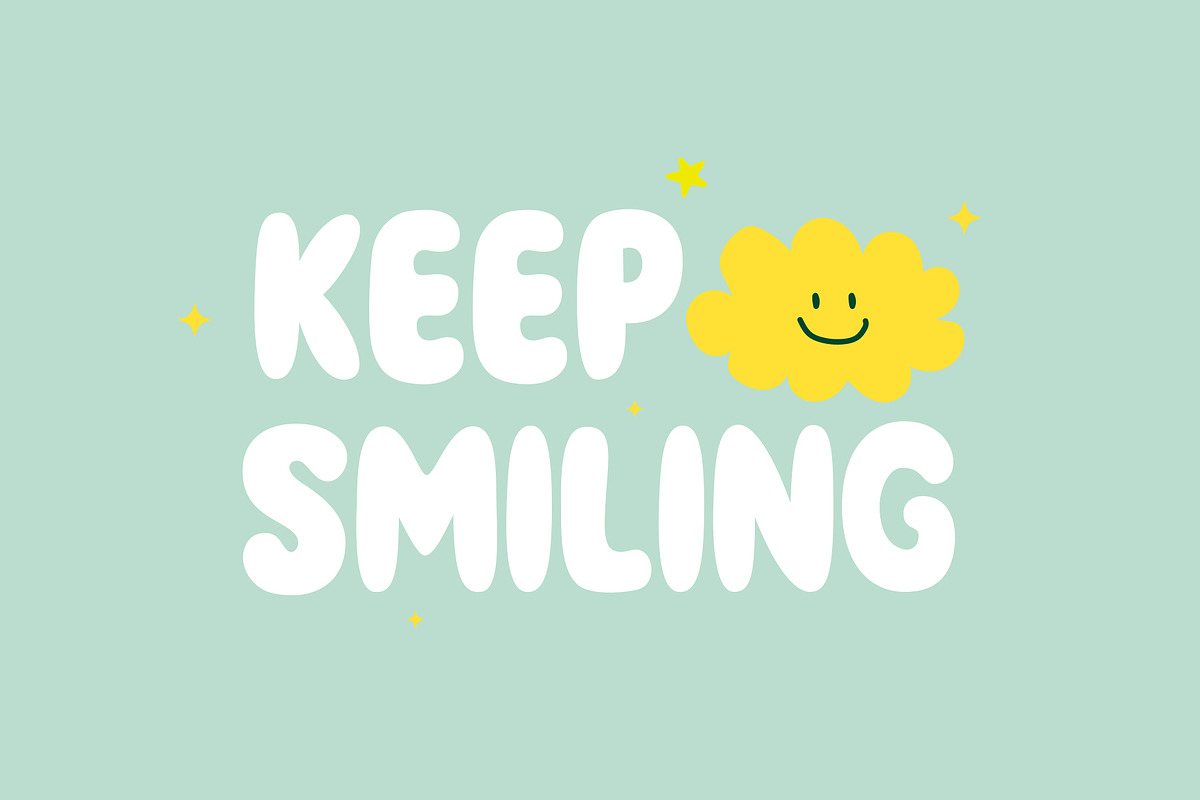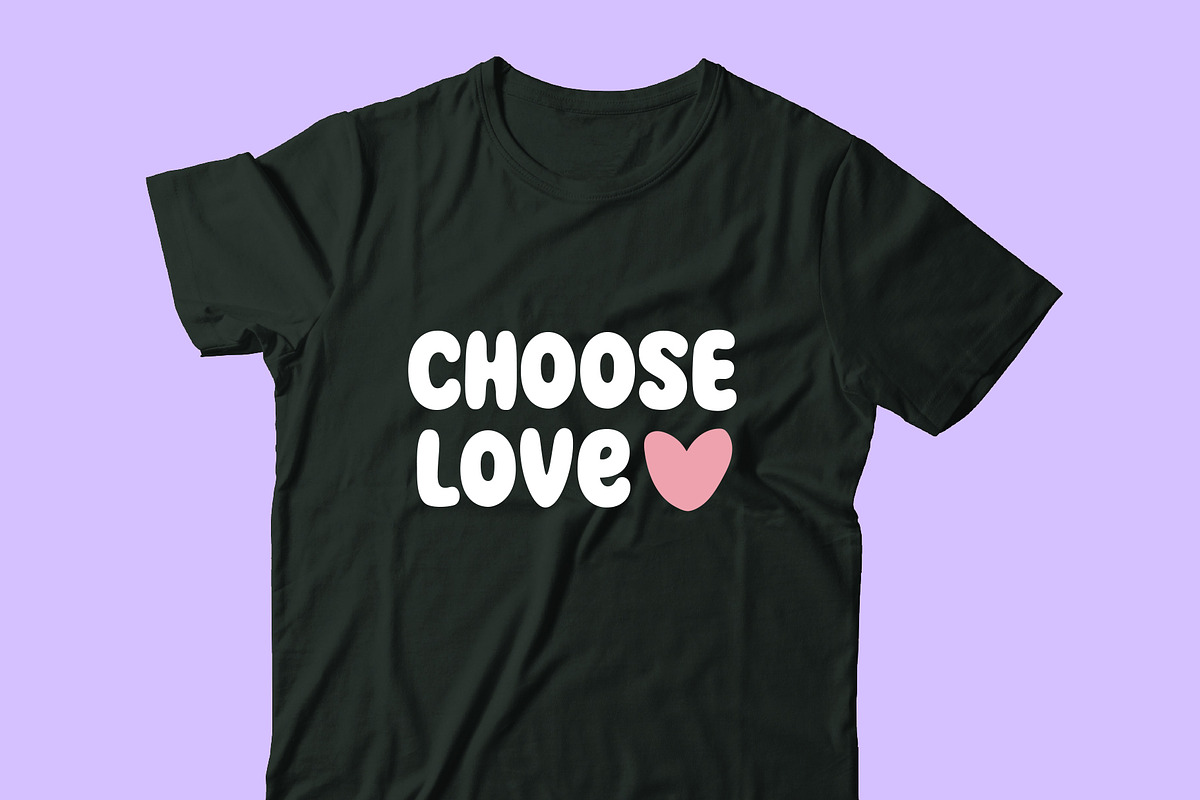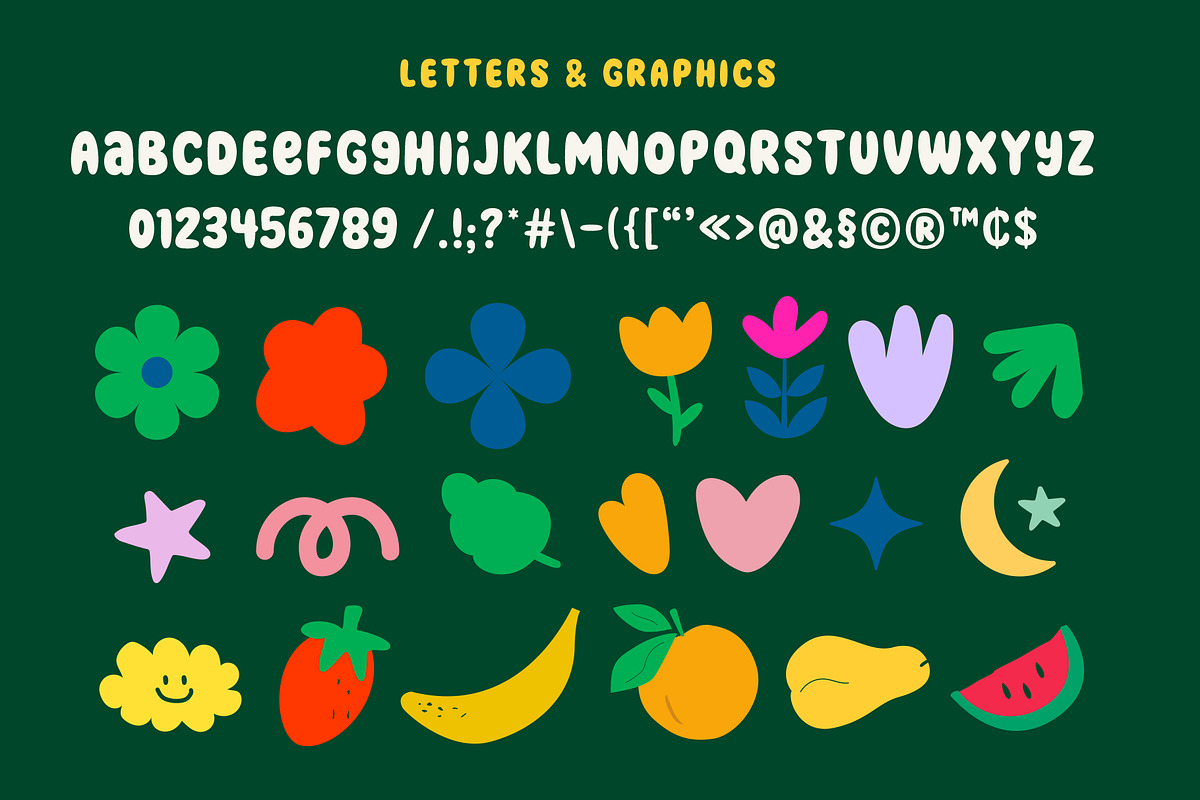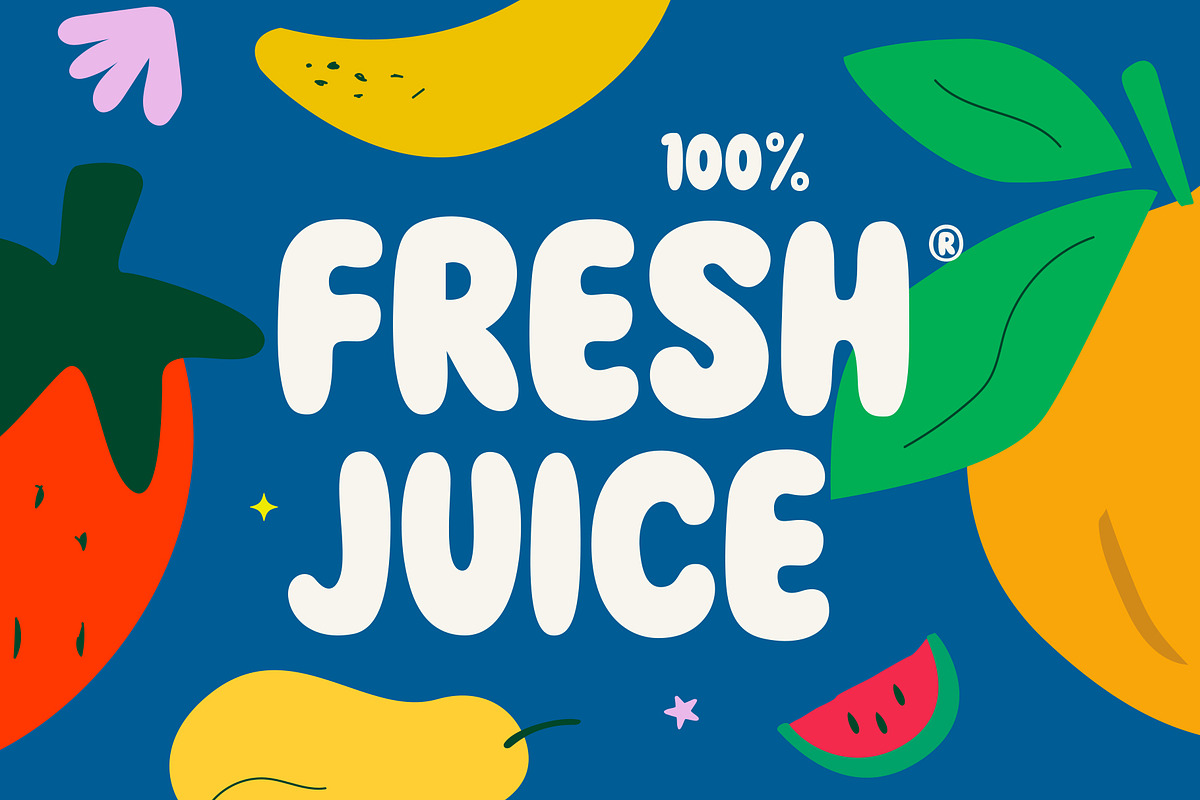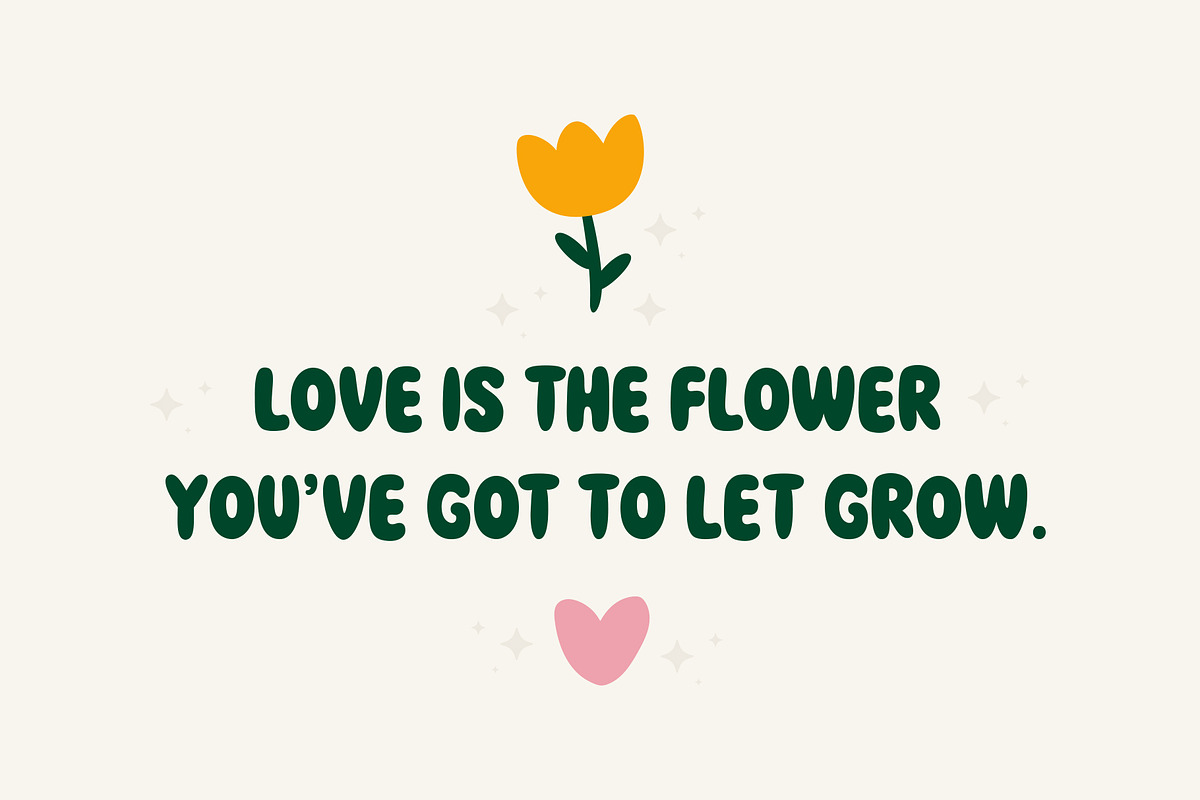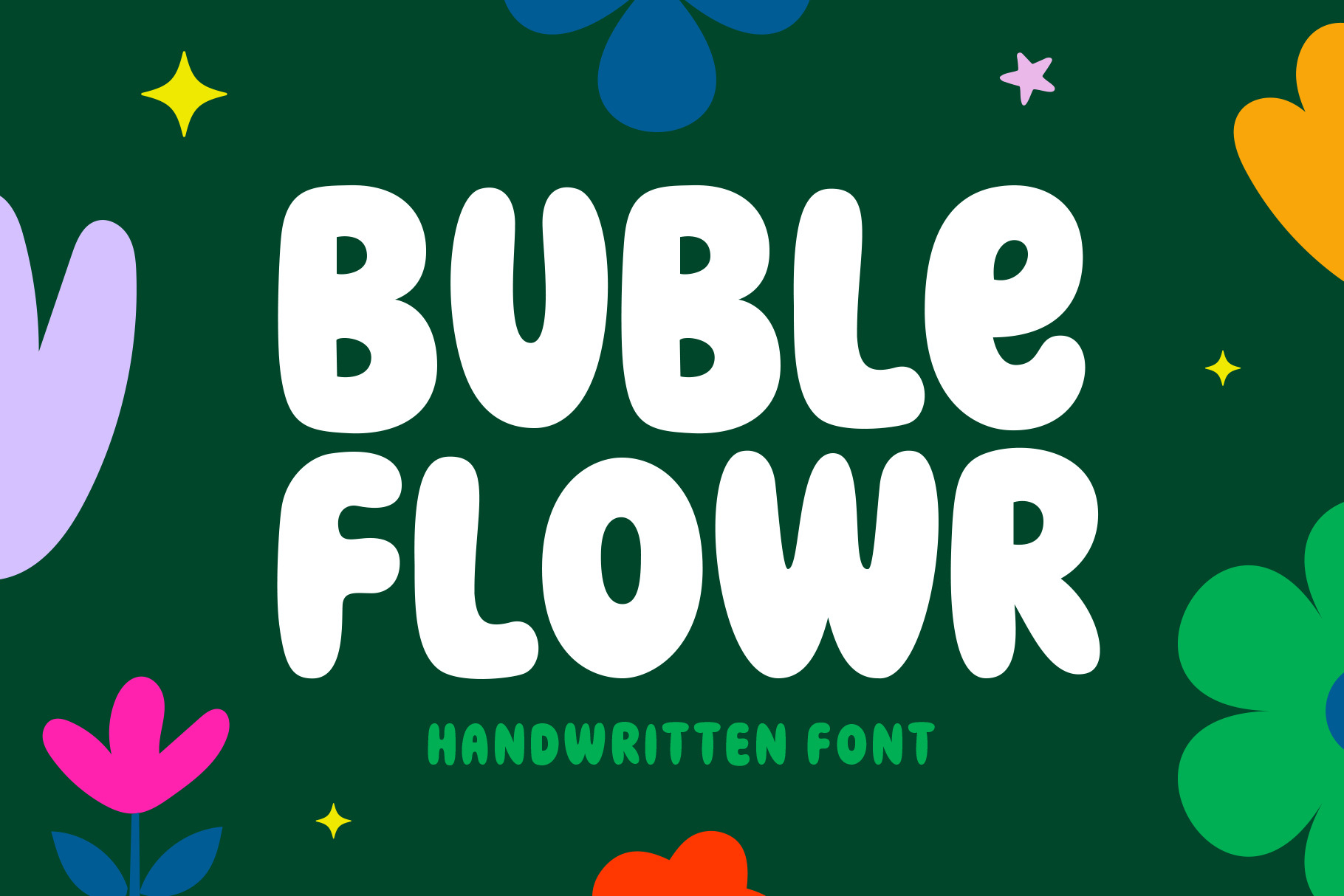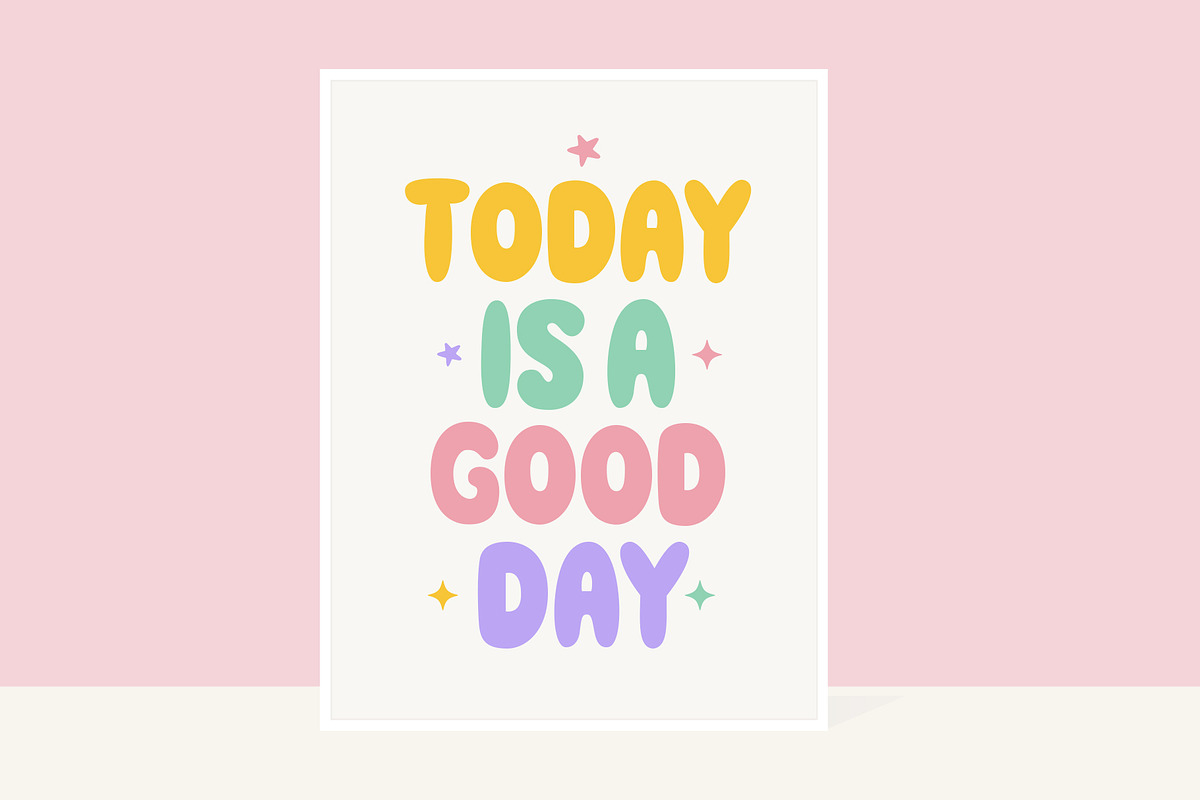
Buble Flowr - Retro Groovy Font
Buble Flowr is a cool, friendly, and fun display font. Whether you’re using it for crafts, digital design, presentations, or making greeting cards, this font has the potential to become your favorite go-to font, no matter the occasion! Comes with free clipart for your designs.